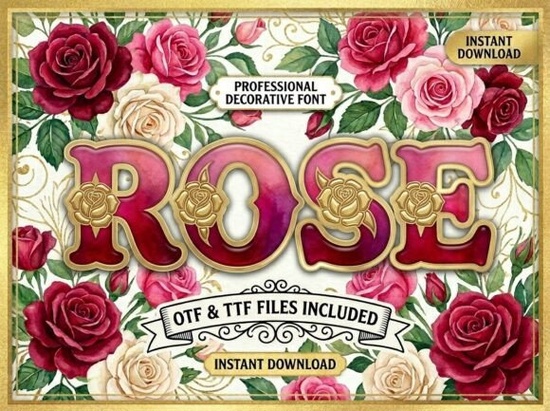
If you're looking for a decorative font that brings instant elegance and a touch of romantic luxury to your designs, the Rose Font is worth considering especially if you work with florist branding, wedding stationery, artisanal product labels, or social media visuals that need to feel both timeless and intentional. It’s not just another script or serif; it’s a thoughtfully crafted slab-serif display typeface with distinctive visual storytelling built right into each letter.
What makes Rose Font different from other decorative fonts?
Most decorative fonts rely on flourishes, swashes, or exaggerated curves. Rose Font takes a more architectural approach: bold, high-contrast letterforms grounded in Victorian-inspired structure but softened with subtle, organic warmth. Each capital letter features a hand-painted burgundy-to-pink watercolor gradient, giving it depth and texture without looking digital or flat. Even more distinctive are the golden-chiseled rose medallions embedded directly into the vertical stems like tiny cameos carved into stone. That detail bridges historical craftsmanship and modern luxury branding in a way few fonts do.
You’ll notice it works especially well when used sparingly: as a headline on a wedding invitation suite, embossed on candle packaging, or centered at the top of an Instagram carousel post. It’s not meant for body text and wasn’t designed to be but where it is used, it carries weight and intention.
Who is this font best suited for?
Small creative businesses and independent makers often need fonts that communicate quality and care without needing custom illustration. If you run a local florist studio, design greeting cards for weddings, craft small-batch cosmetics, or sell handmade candles online, Rose Font helps reinforce your brand’s premium positioning without requiring expensive logo redesigns or custom typography commissions.
It also fits naturally alongside other curated decorative fonts. For example, if you’re building a seasonal collection and want contrast between delicate and bold, you might pair Rose Font with something softer like the floral-themed display fonts or even the playful kawaii-smile style for secondary messaging. Just keep hierarchy clear: let Rose Font lead, and others support.
How does it perform in real production workflows?
The font includes standard OpenType features (ligatures, alternates, and multilingual support), and it’s optimized for both digital and print use. When printed on textured paper or foil-stamped, the gold accents translate beautifully especially when paired with matte black or cream backgrounds. On screen, it holds up well at larger sizes (48pt and up), though readability drops below 36pt for most displays, so avoid using it for captions or mobile-first social posts unless scaled carefully.
Where else can you see similar styles?
If you enjoy the ornamental sensibility of Rose Font, you might also explore other historically inspired display faces like the rose font itself, or complementary options such as the flower font for lighter botanical themes, or the kawaii-smile font when you want gentle contrast in tone.
It’s worth noting that while many decorative fonts lean heavily into trend-driven aesthetics, Rose Font avoids passing fads by anchoring itself in classical proportion and material-based detail making it more likely to age gracefully in your brand assets.
- ✅ You need a standout display font not for body copy, but for headers, logos, or packaging fronts
- ✅ Your audience responds to tactile, luxurious, or romantic visual cues (e.g., weddings, beauty, artisan goods)
If those match up, Rose Font could become one of your go-to tools for projects where first impressions matter and where elegance shouldn’t feel generic.